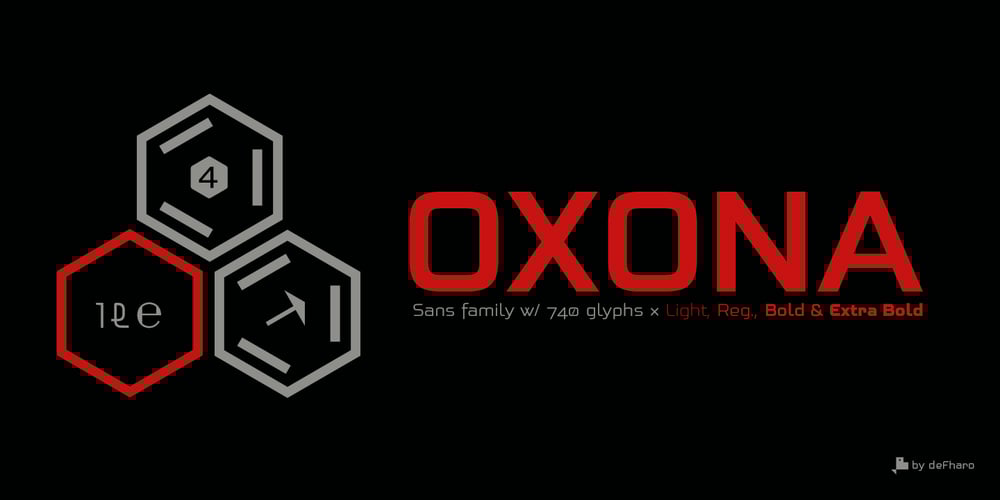
Oxona Font Family was designed by Fernando Haro and published by deFharo. Oxona contains 4 styles and family package options. Oxona is my new conceptual and multipurpose typographic creation, born from precision and passion, also from the clarity and elegance of geometric sans serif design!Meticulously designed to challenge convention, Oxona is a futuristic sans serif with meticulously calculated square proportions, which aims to redefine readability and visual impact. Every stroke, every curve and every angle has been polished to achieve a perfect balance between absolute clarity and aesthetic boldness, due to its cleanliness, modernity and functionality, the geometric structure and subtle optical adjustments that generate great harmony and make it a unique typeface, as rational as it is expressive. The absence of serifs makes it ideal for transmitting messages clearly on any medium, from digital screens to editorial prints.• A balanced and precise designOxona is not only aesthetically appealing, but has been designed with an obsession with detail. From precision in metrics to millimetric kerning, each letter has been optimized to ensure flawless and harmonious readability. This meticulous approach makes it a multipurpose font, capable of adapting elegantly and strongly to any application. Corrected curves and pixel-corrected spacing ensure that no text feels forced.• Four weights for maximum versatilityLight – Delicate and sophisticated, for texts that exude eleganceRegular – The balanced one, perfect for impeccable text bodies.Bold – Strong and expressive, for titles that demand attention.Extra Bold – The most daring, created to shout ideas with force.• Advanced OpenType TechnologyOxona is not only beautiful, but also smart. It incorporates advanced OpenType features that make it even more powerful:Alternative letters and numbers to give a unique twist to your designs.Dynamic fractions and mathematical signs, ideal for technical or editorial projects!Special arrows and symbols that enhance infographics and signage.Plus, its compatibility with Latin Extended-A allows it to be used in more than 200 languages, opening the doors to global communication without barriers.